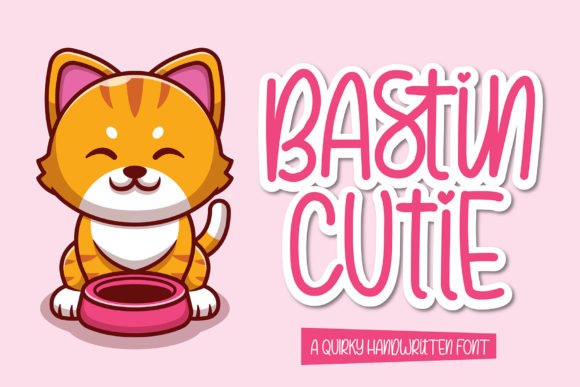
Introduction to Bastin Cutie Font
Bastin Cutie is a simple and quirky lettered handwritten font.
This adaptable font will look great on a variety of design ideas It will add a fun and friendly touch to each of your projects.
Bastin Cutie Font offers exceptional quality and versatility, making it a valuable addition to your design toolkit. Whether you’re creating for personal projects or commercial use, Bastin Cutie Font delivers professional results.